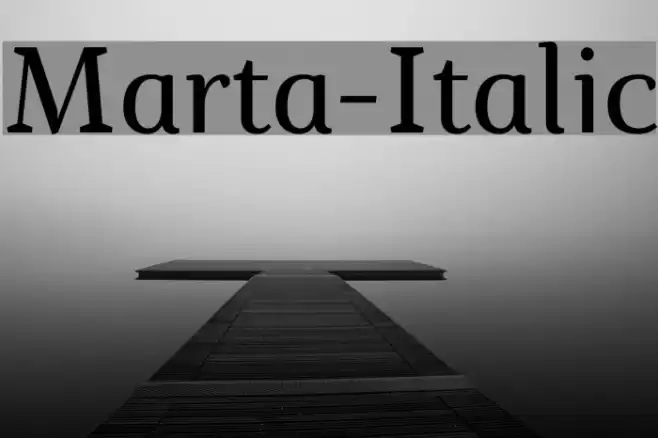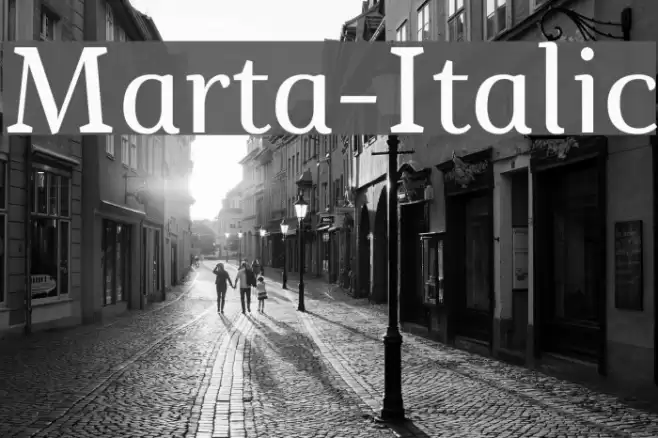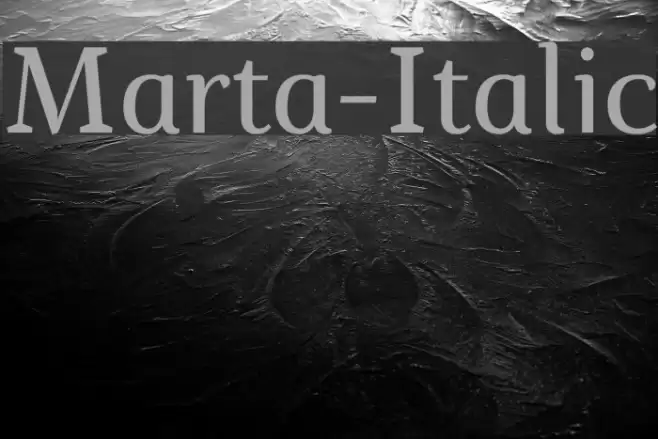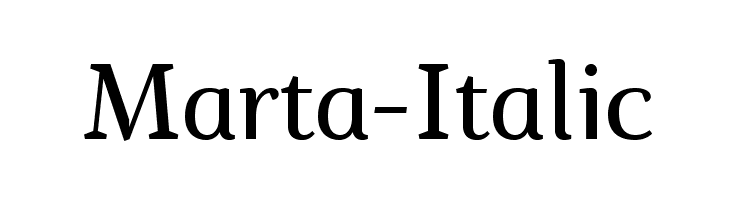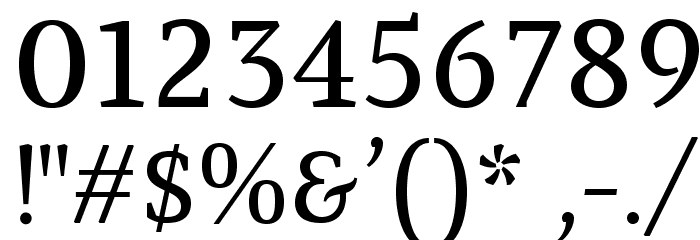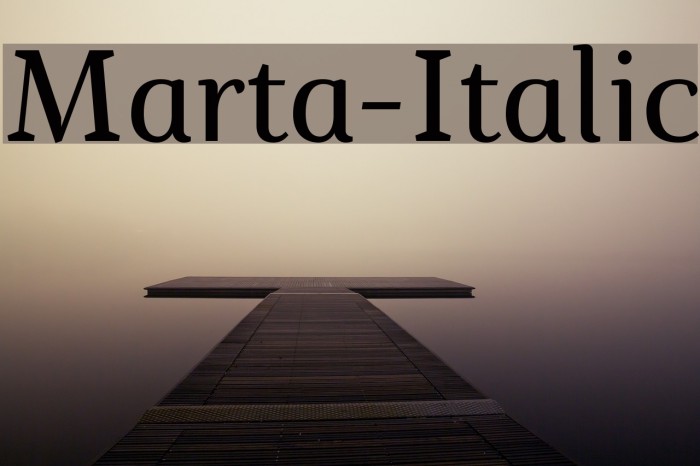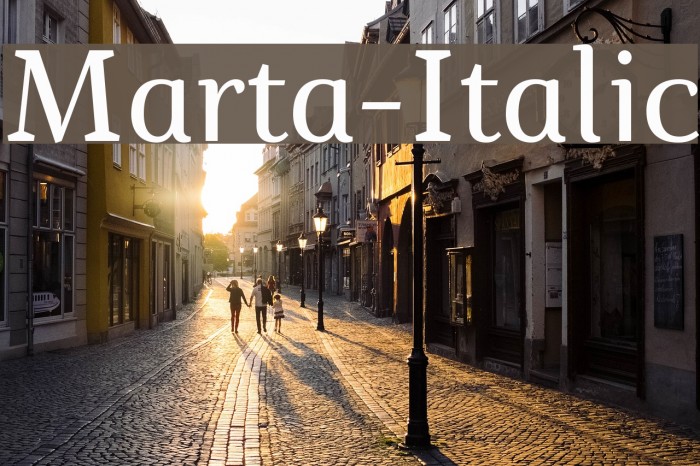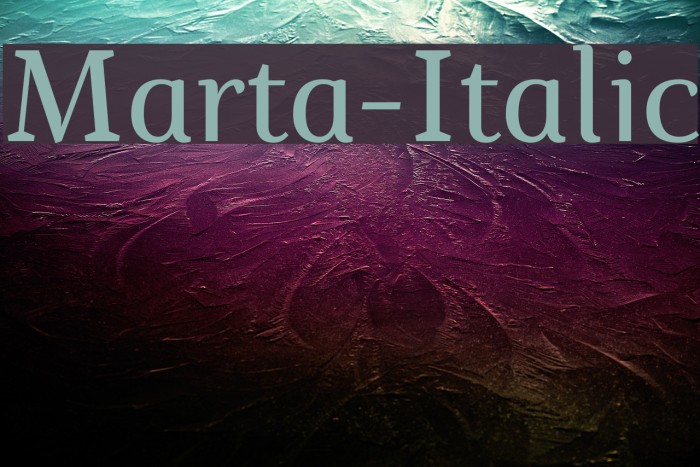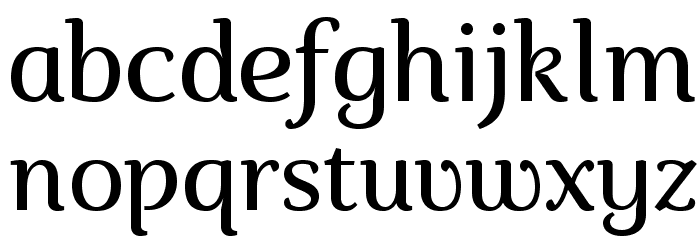
This font features a classic serif style with elegant curves and a slight italic slant, giving it a sophisticated and timeless appearance. The uppercase letters are bold and commanding, while the lowercase letters maintain a graceful flow. The numerals are clear and well-proportioned, making them easy to read. Special characters are designed with the same attention to detail, ensuring consistency across all glyphs. The overall design is balanced, with moderate contrast in stroke thickness, adding to its readability and aesthetic appeal.
A classic serif font with elegant curves and a slight italic slant from Uncategorized fonts.
- Proposed Projects: Ideal for editorial design, book covers, formal invitations, and branding projects that require a touch of elegance.
- Overall Style: Classic